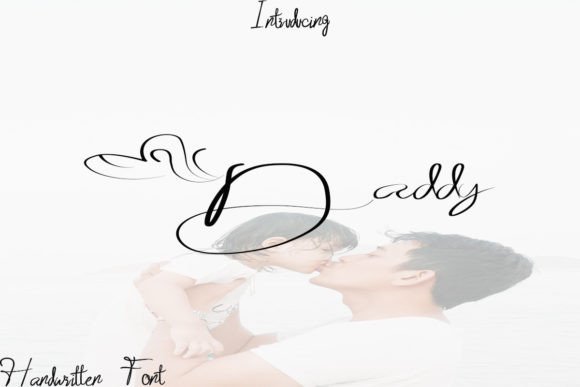
Daddy Font
About Daddy Font
Daddy is a sophisticated calligraphic script font that blends the timeless beauty of copperplate calligraphy with the modern flair of hand lettering. Its elegant and feminine character makes it the perfect choice for adding a touch of luxury to your designs.
Key Features:
• Beautiful Alternate Characters: Customize your designs with unique and stylish options.
• Easy to Read: Despite its elegant appearance, Daddy is highly legible.
• Versatile: Suitable for a wide range of applications, from wedding invitations to luxury branding.
Ideal For:
• Wedding Invitations: Create stunning and unforgettable invitations.
• Luxury Branding: Elevate your brand image with a sophisticated typeface.
• Packaging: Enhance product appeal with elegant and refined typography.
• Fashion and Beauty: Add a touch of glamour to your designs.
• Stationery and Paper Goods: Create exquisite pieces for special occasions.
With its subtle curves and graceful flow, Daddy font is a must-have for designers seeking to create sophisticated and memorable projects.